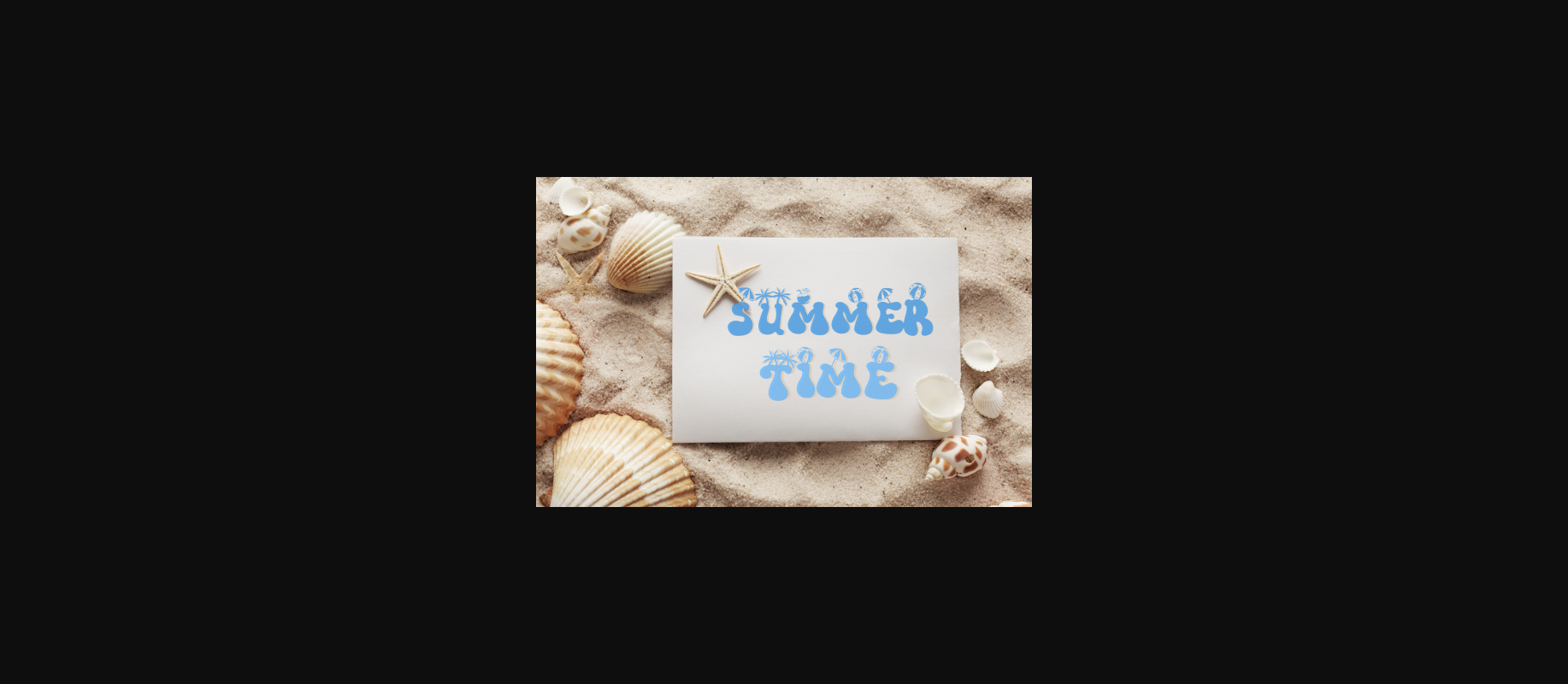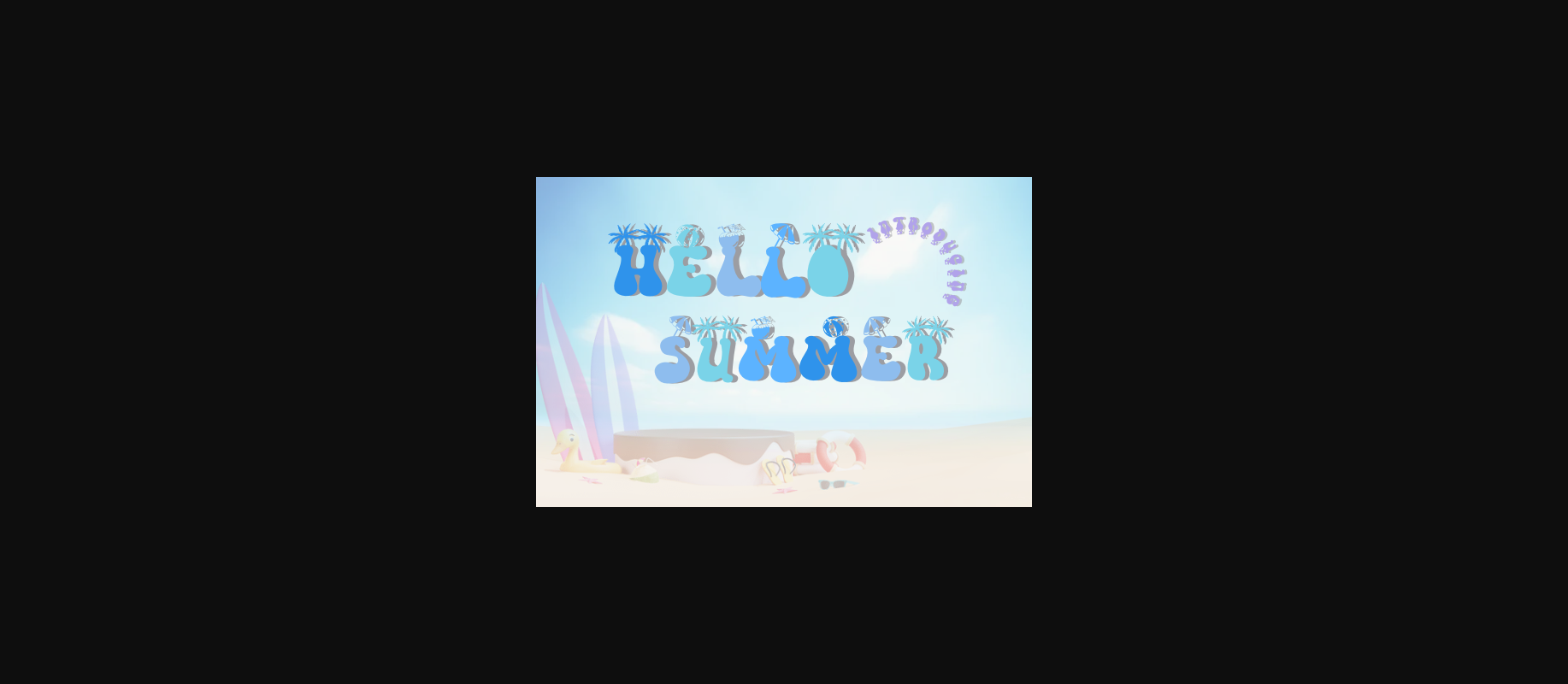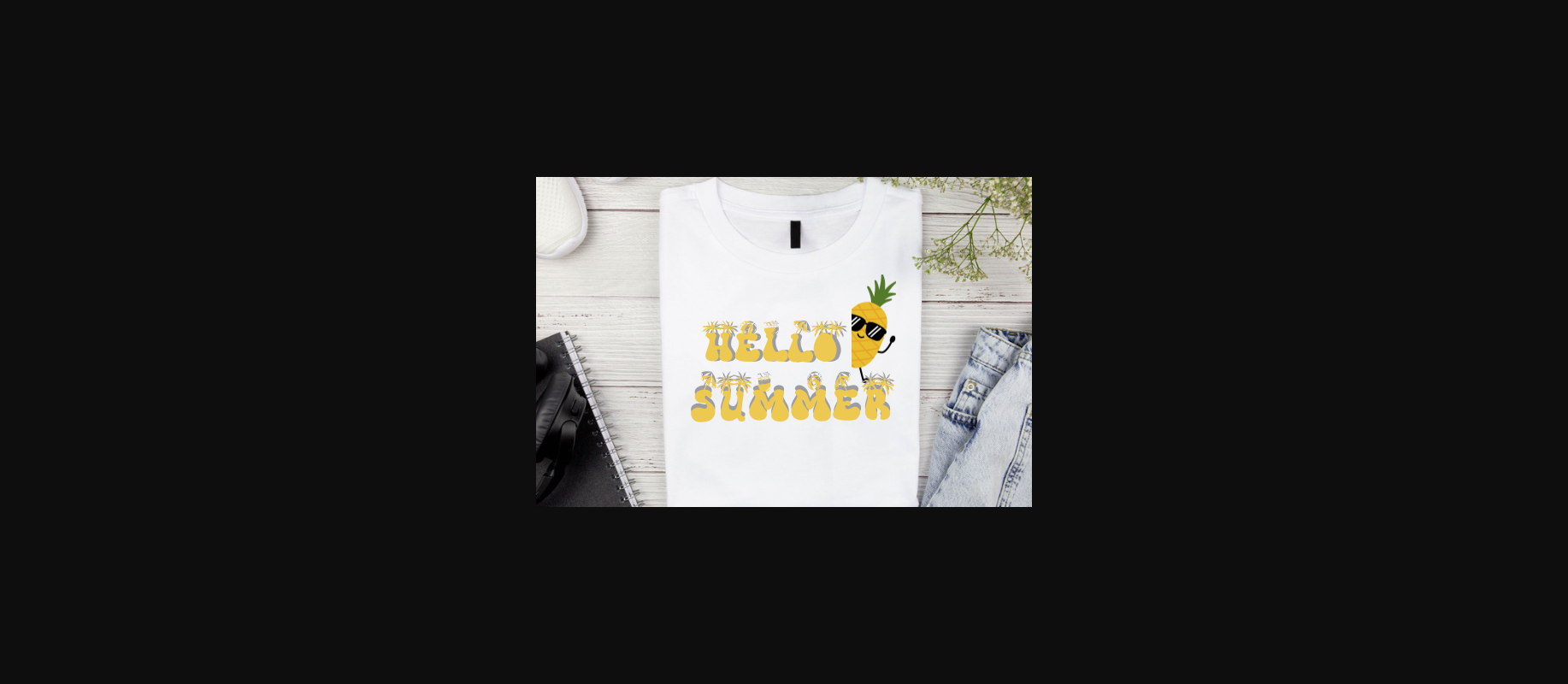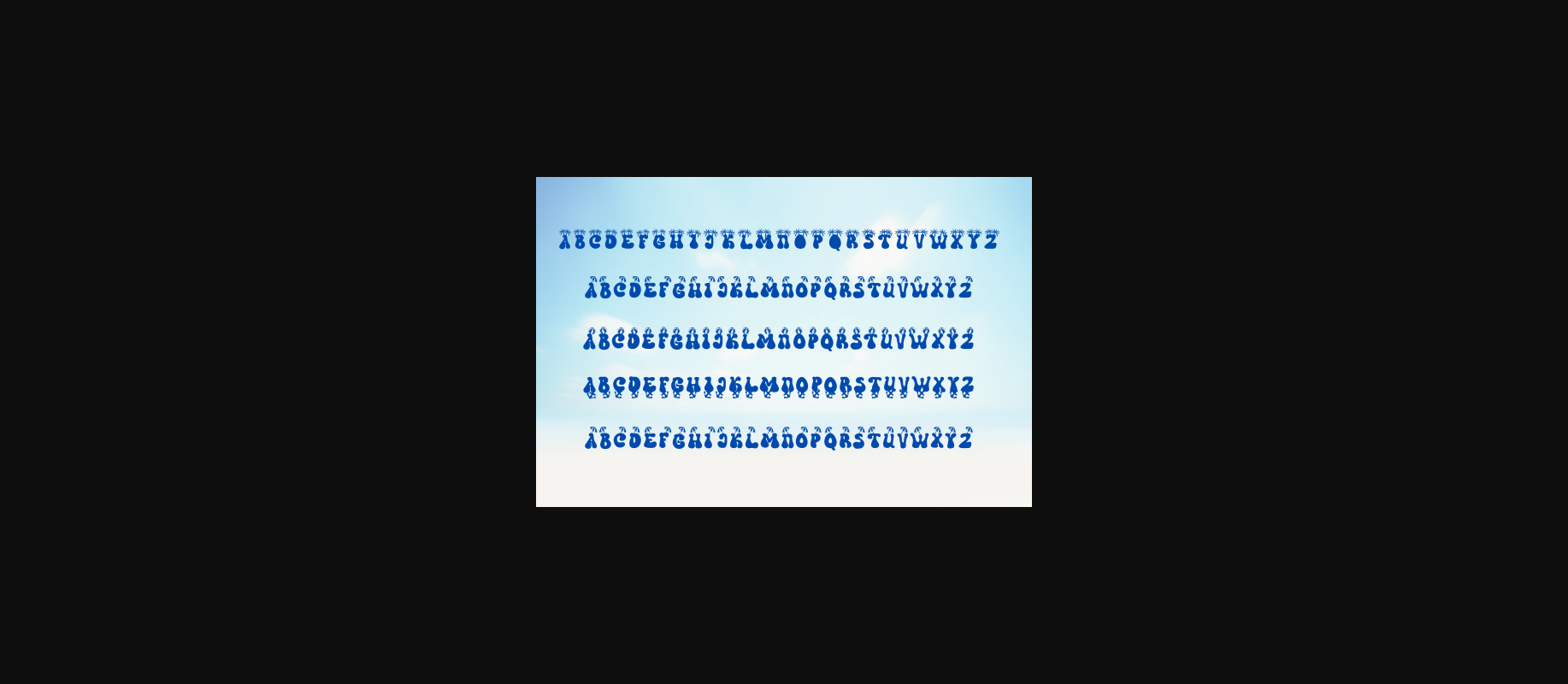
Hello Summer Font
About Hello Summer Font
Hello Summer is a summer-themed font, and is perfect for designs about summer-themed travel, beaches, parties, and events. This font is very unique and full of vigor, in keeping with the theme of a young person who likes parties and adventures.